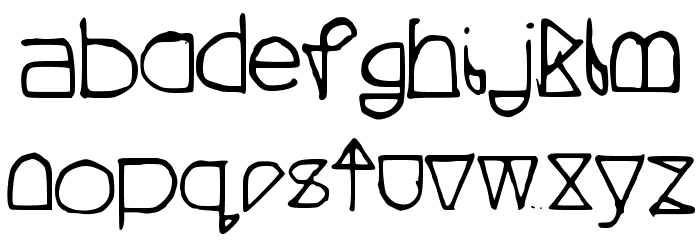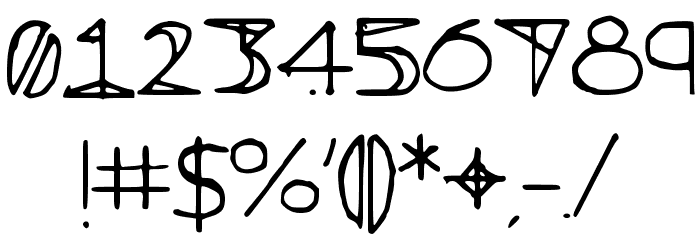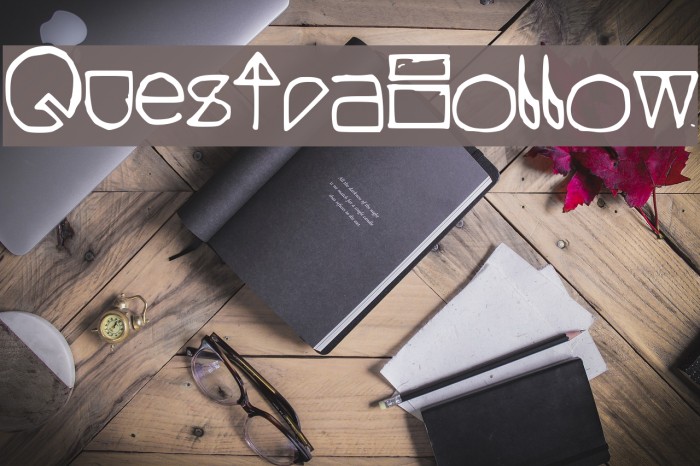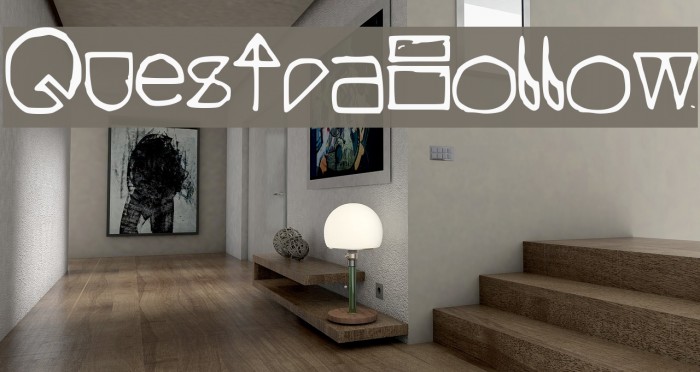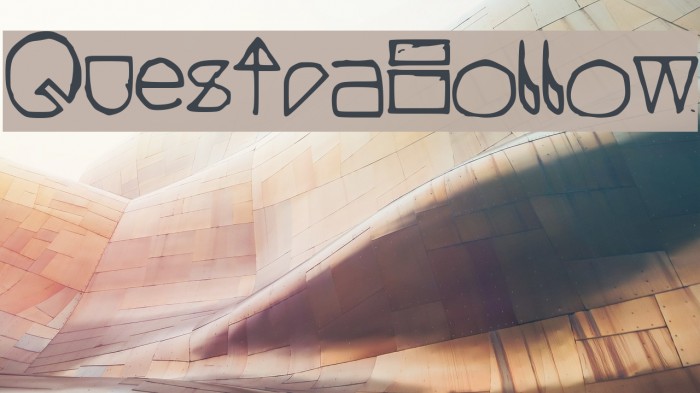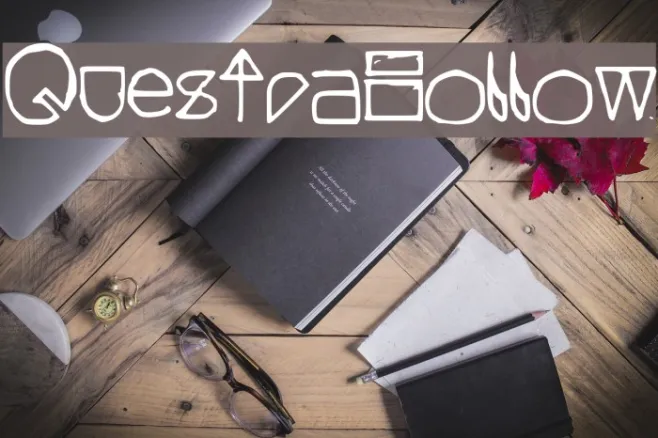
QuestraHollow Font
This font features a unique, artistic design with a hollow, geometric style. Each character is crafted with a combination of straight lines and curves, creating a futuristic and abstract appearance. The uppercase and lowercase letters maintain a consistent aesthetic, with angular elements and open spaces that give the font a distinctive look. Numbers and special characters follow the same design principles, ensuring uniformity across all glyphs. The font's unconventional style makes it stand out, ideal for creative and modern projects that require a bold statement.
A geometric, hollow font with a futuristic and abstract design.
- Proposed Projects: Ideal for sci-fi themed designs, modern art projects, unique branding, and creative posters.
- Overall Style: Futuristic, Abstract
- Use Case: Logos, Posters, Creative projects